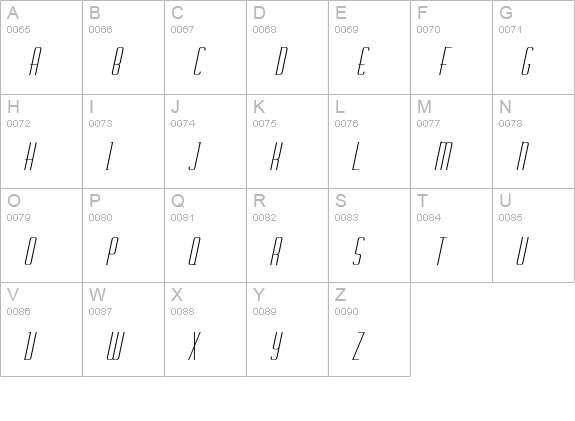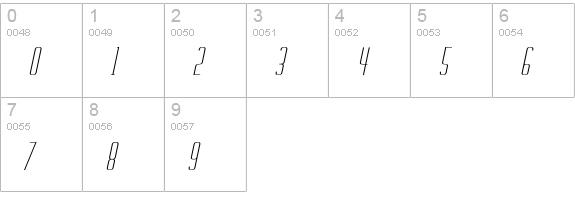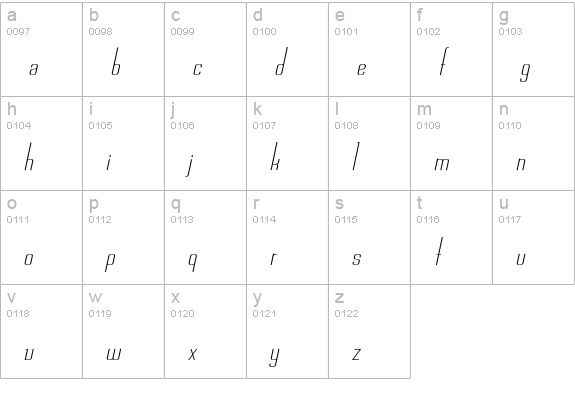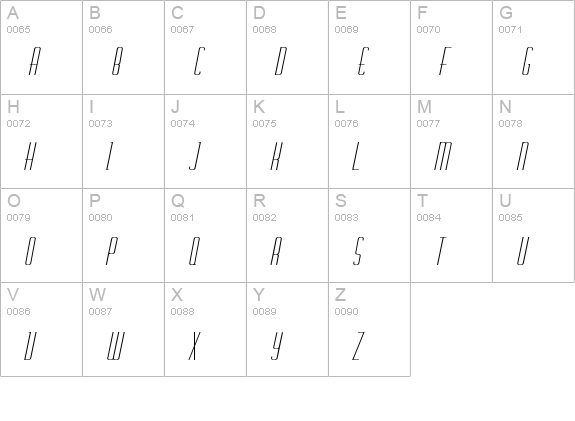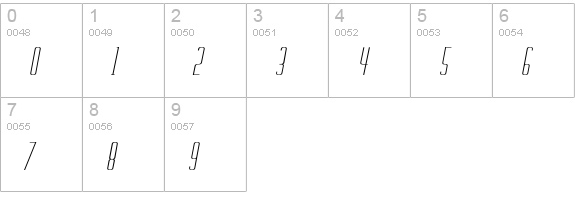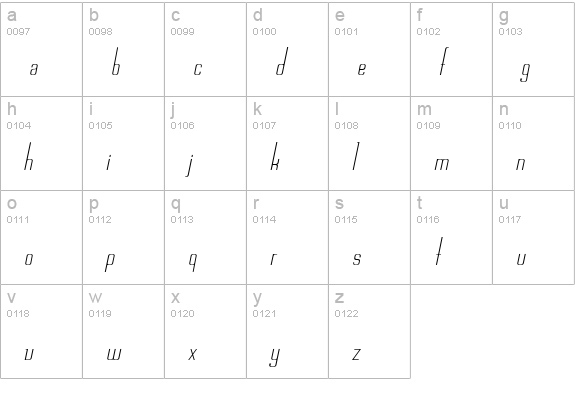
Chasline-Oblique Font Details
Chasline-Oblique is a distinctive, italic variant in the Chasline typeface family \xE2\x80\x94 well suited to design and typography projects.
Chasline-Oblique font is a sleek and stylish typeface that exudes elegance and sophistication. With its unique slanted design, this font brings a modern flair to any project it is used in. The thin, elongated letterforms give Chasline-Oblique a sense of fluidity and movement, making it perfect for adding a touch of class to logos, branding materials, and more. One of the best things about Chasline-Oblique font is that it is completely free to download. You can easily access this beautiful font at FontsMarket.com, where you can add it to your collection and use it in all your design projects without any cost. Don't miss out on the opportunity to elevate your designs with the stunning Chasline-Oblique font - download it for free today!